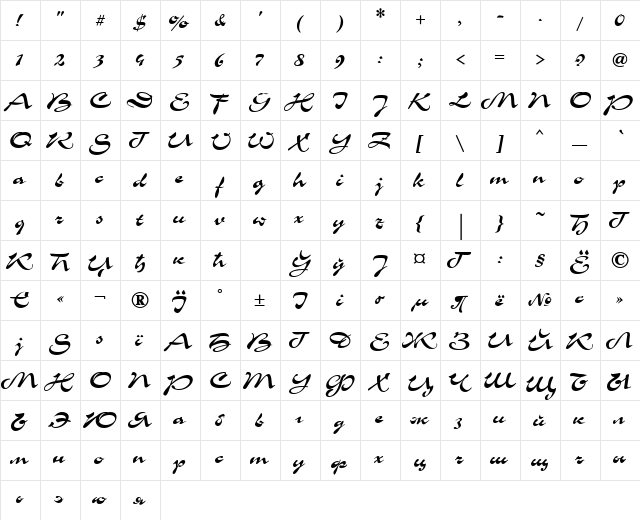
Corrida Cyrillic
Design Context for Corrida Typeface
Corrida is a composed and adaptable typeface that performs quietly and consistently across a wide range of design contexts.